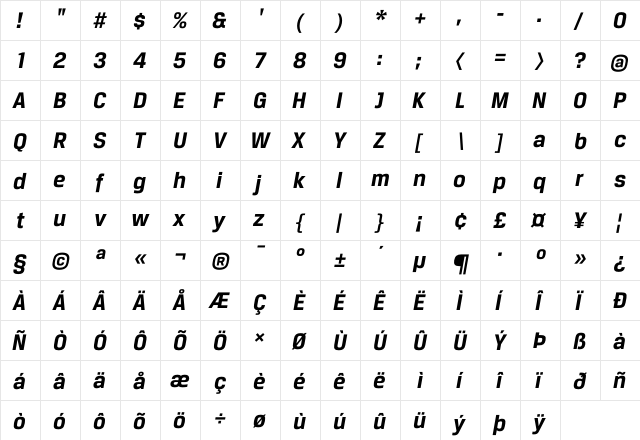
BreuerText Bold Italic
| Foundry | by Silas Dilworth |
Design Context for BreuerText Typeface
BreuerText is a composed and adaptable typeface that performs quietly and consistently across a wide range of design contexts. Its italic angle brings a sense of urgency and motion to the letterforms. The heavy weight commands attention and anchors typographic hierarchies.
Pro Tip: Use BreuerText for emphasis, pull quotes, and subheadings where its slanted energy can add rhythm to the layout.